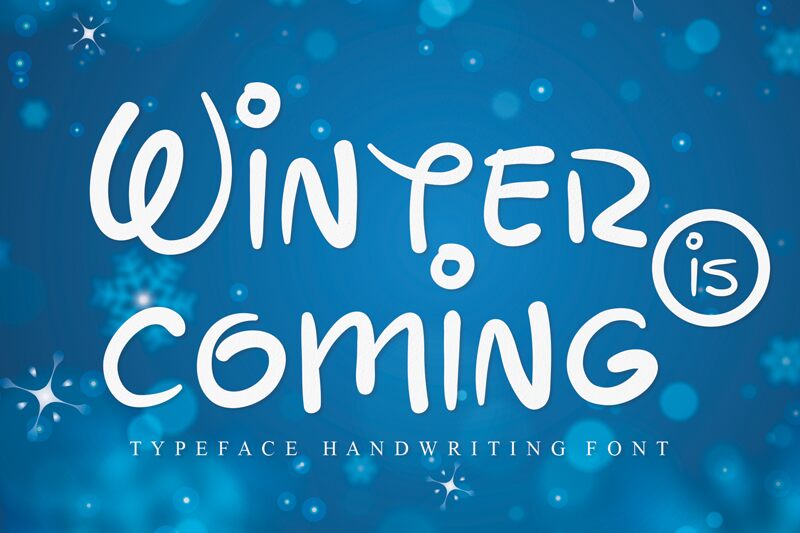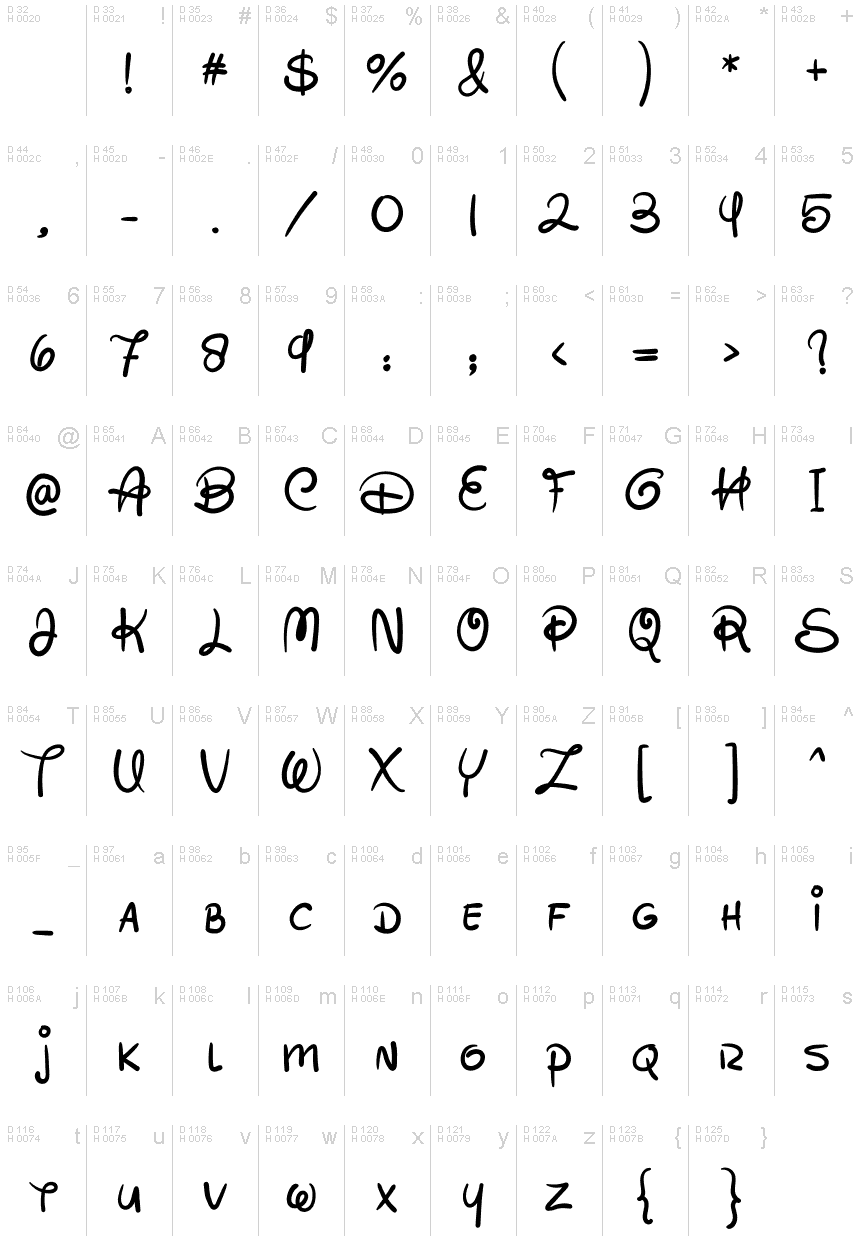
WinterIsComingRegular
the latest style letters are perfect for wall displays, wedding invitations, social media post logos,
advertisements, product packaging, product designs, labels, photography, watermarks, invitations, stationery,
and any project that requires taste handwriting.